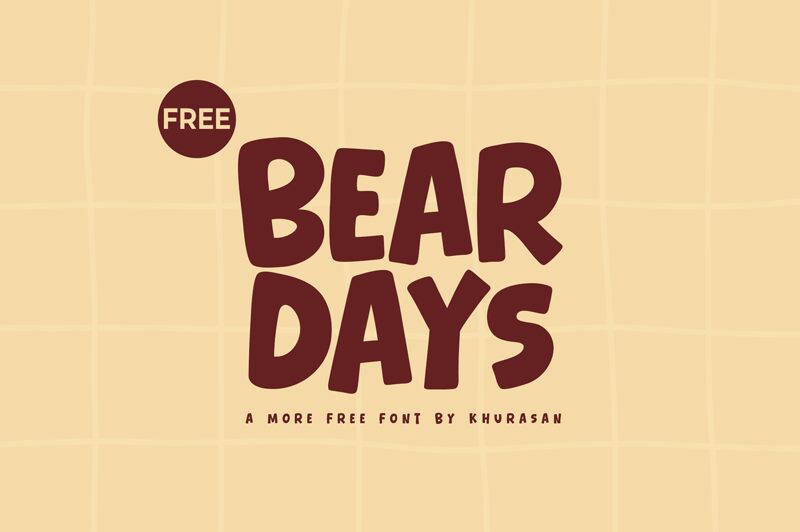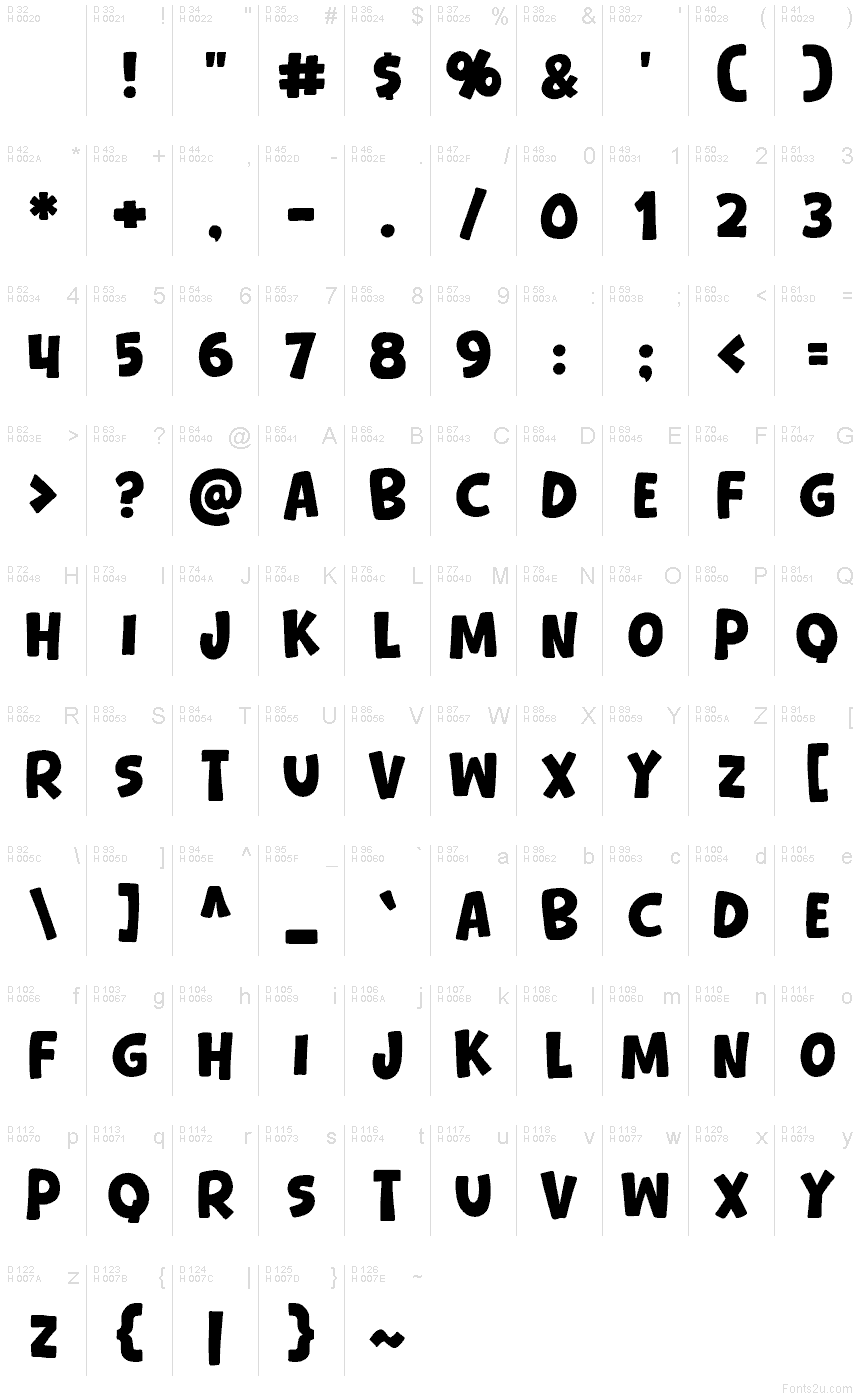
Bear Days font by Khurasan is a free cartoon display typeface. Built for cheerful headlines, its chunky, hand-cut shapes and inky, softened edges give copy a warm, huggable voice that still reads fast. The letters feel plump and confident, with a steady rhythm and compact spacing that makes short words look bold and friendly without shouting.
Using Bear Days, you’ll get instant charm for kids’ book covers, birthday invitations, toy packaging, classroom posters, snack branding, stickers, and YouTube thumbnails. This free font shines at larger sizes; add a touch of letterspacing for extra bounce. Pair it with a clean rounded sans for body copy to keep the message bright and easy on the eyes.
Bear Days